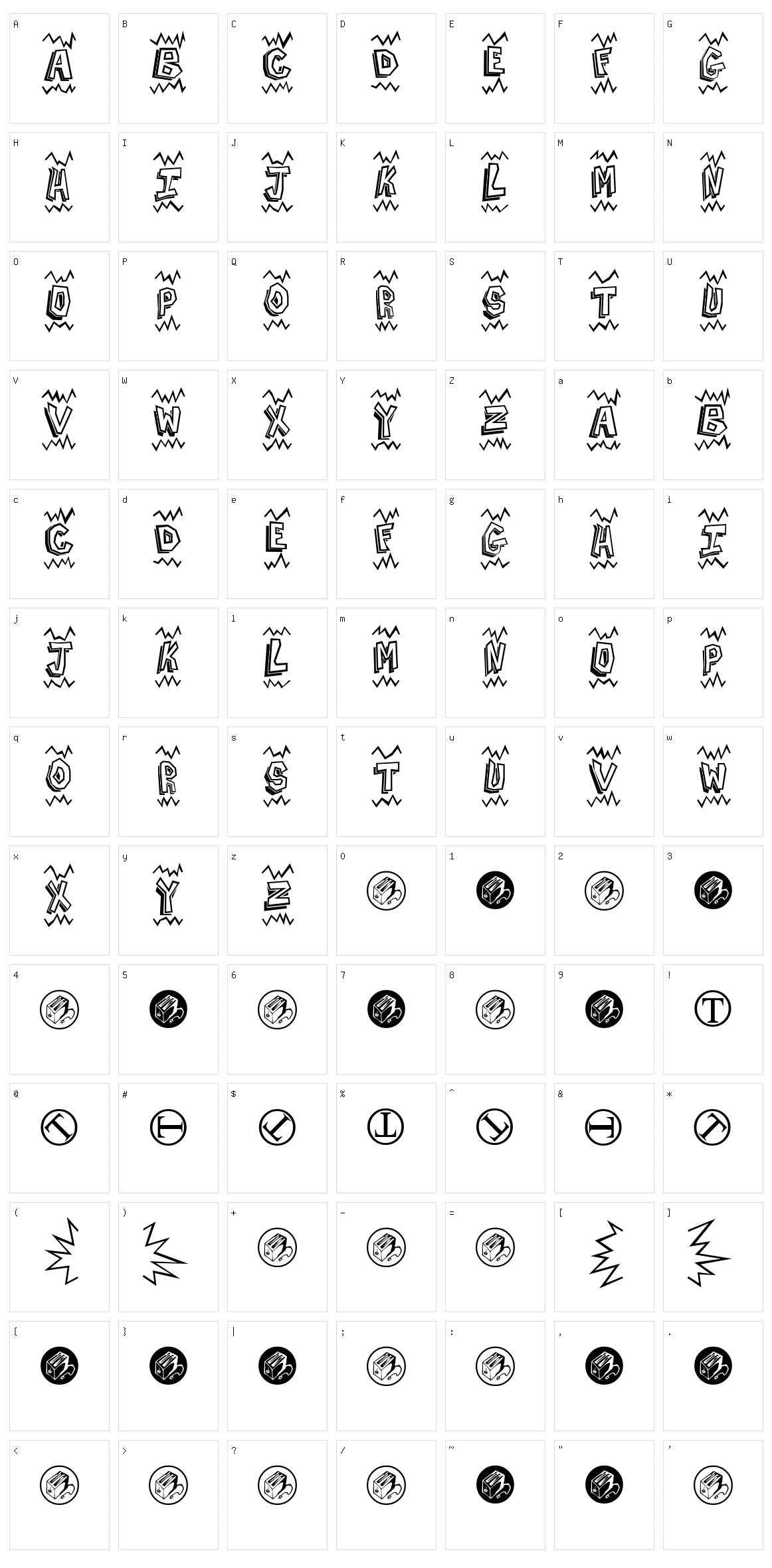
The free font Batman Beat the hell Outta Me is carefully designed by Grilled Cheese, showcasing a thoughtful balance of creativity and usability and falls under the Cartoon font style. When you download the ZIP file, it contains only 74.79 KB of font files, making it lightweight and quick to download. Please review the license details below to understand permitted usage and distribution rights. If license information is not available, we recommend using this font for personal projects only or contacting the author directly for commercial usage permissions.